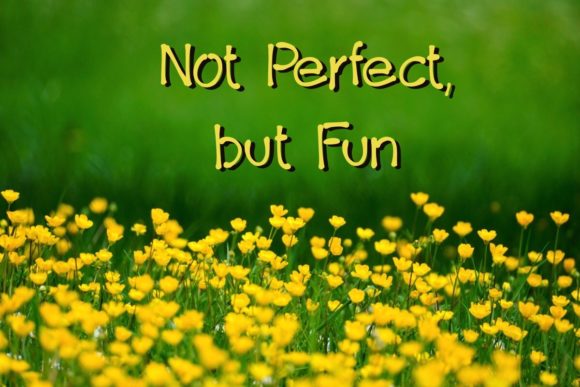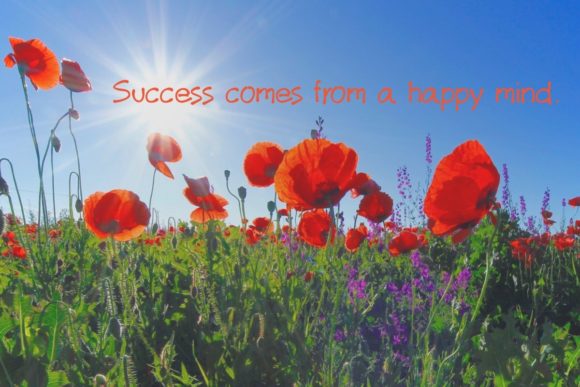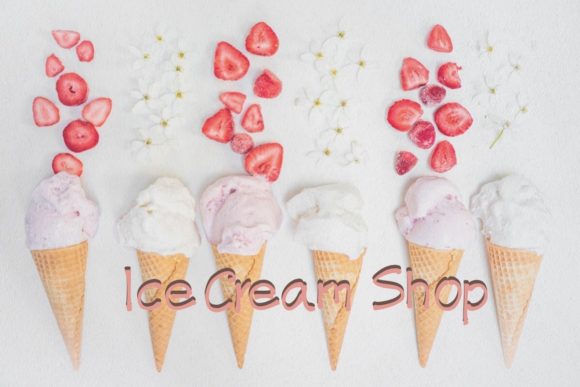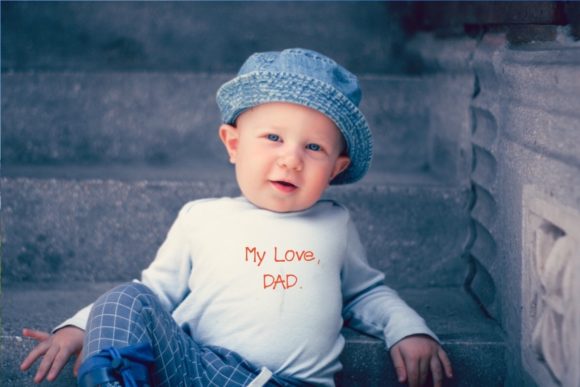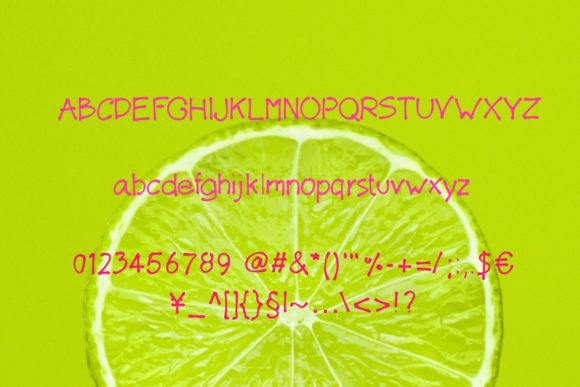
About Not Perfect, but Fun Font
Not Perfect, But Fun is a delightful and playful handwritten font that brings a sense of joy and creativity to your designs. With its cute and friendly style, this font is perfect for a wide range of projects, including chalkboard quotes, teaching materials, invitations, greeting cards, and more.
The simplicity of Not Perfect, But Fun adds to its charm and makes it easily readable. The hand-drawn quality of the letters gives your designs a personal touch and a sense of authenticity. Whether you’re creating educational resources, crafting fun posters, or designing playful social media graphics, this font will bring a unique and whimsical vibe to your work.
The versatility of Not Perfect, But Fun allows it to adapt to various design themes and styles. Its friendly and approachable nature makes it suitable for both children’s designs and lighthearted, casual projects. The authentic look and feel of this font add a touch of nostalgia and warmth, making your designs more relatable and engaging.
Not Perfect, But Fun is designed to evoke a sense of creativity and fun. It encourages a playful and imaginative approach to design, allowing you to experiment with different layouts, colors, and compositions. Use it to add a touch of spontaneity and lightheartedness to your projects, and let your creativity shine.
In summary, Not Perfect, But Fun is a cute, simple, and friendly handwritten font that adds a personal and realistic feel to your designs. Its authenticity and versatility make it suitable for a wide range of applications, from chalkboard quotes to teaching materials and more. Embrace the playful nature of this font and let it bring a sense of joy to your creative projects.